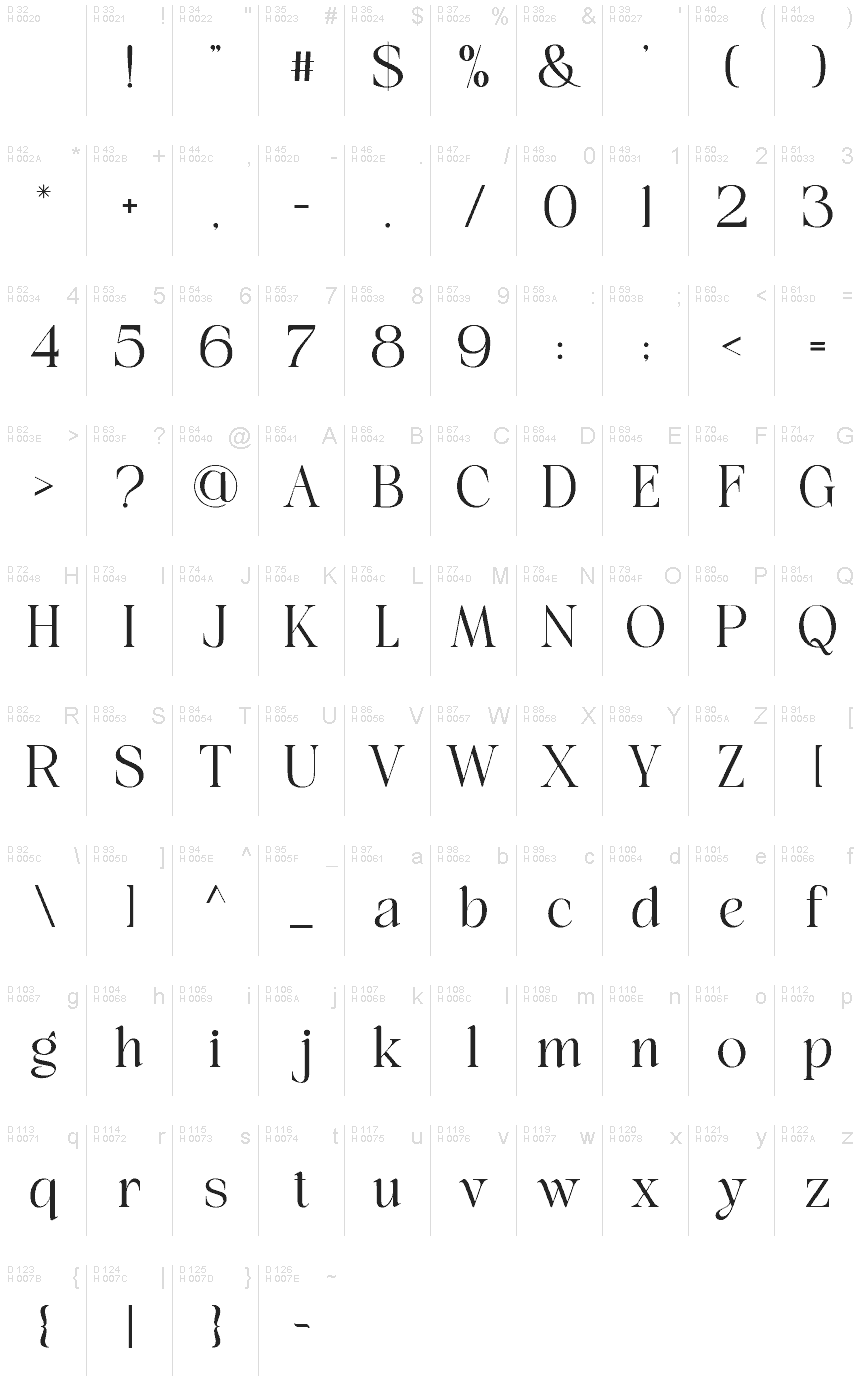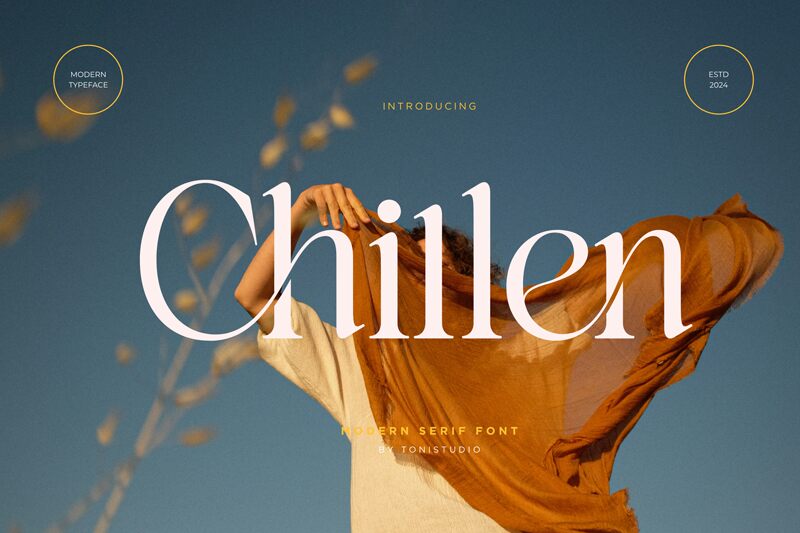
Chillen
Chillen font by ToniStudio is an elegant serif font that evokes a classic and timeless feel. Refinement and sophistication are felt in every detail for a truly unique minimalist typeface. No wonders all these features were achieved since the designer of the Chillen was inspired by early print and classical typographic designs.
A free serif font, it excels when used in luxury branding, editorial/magazine design, formal invitations, logotypes, packing design, website headings among many other creative projects. Additional uses of the Chillen typeface include product labels, social media posters or layouts, homeware designs such as tags or wall hangings.